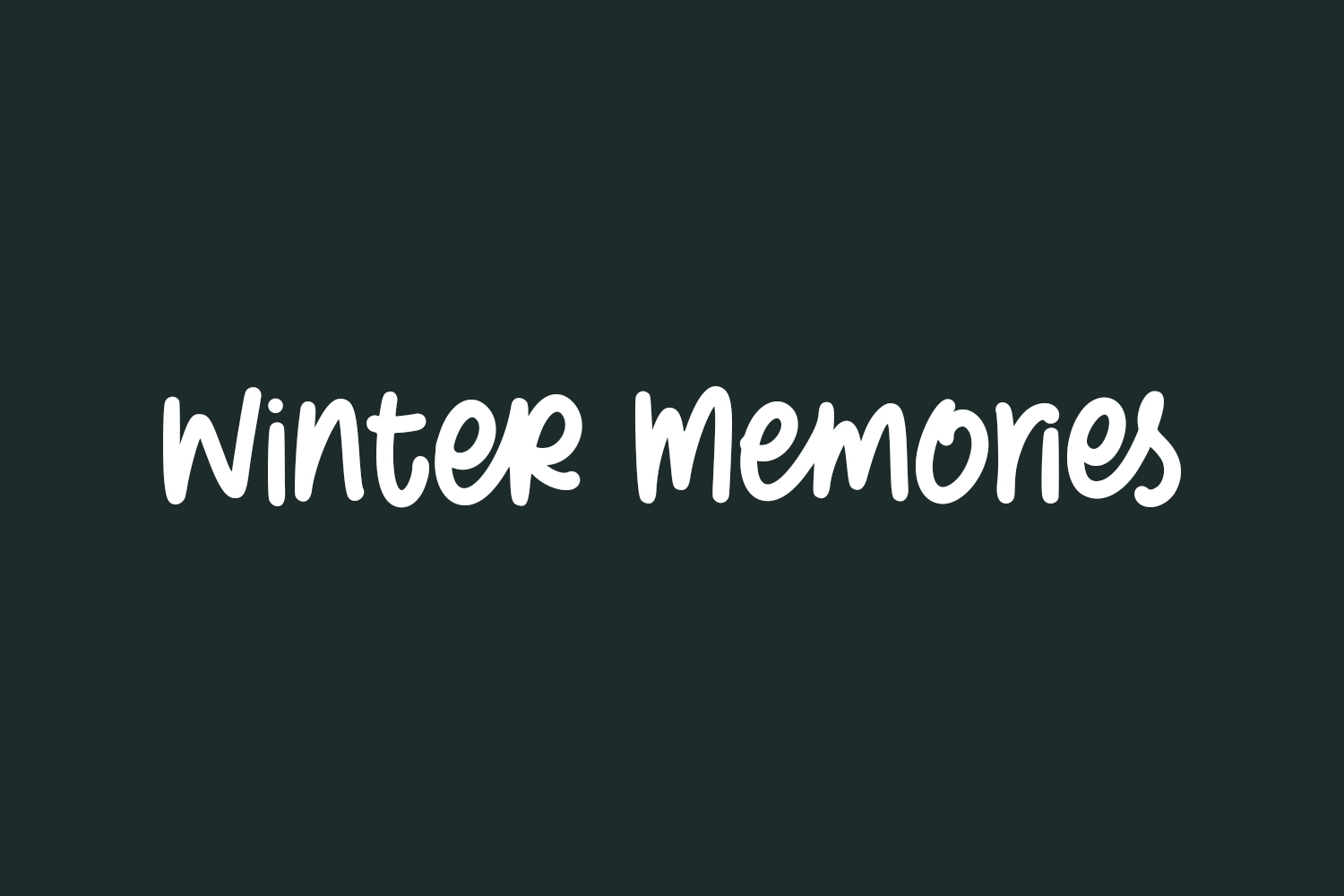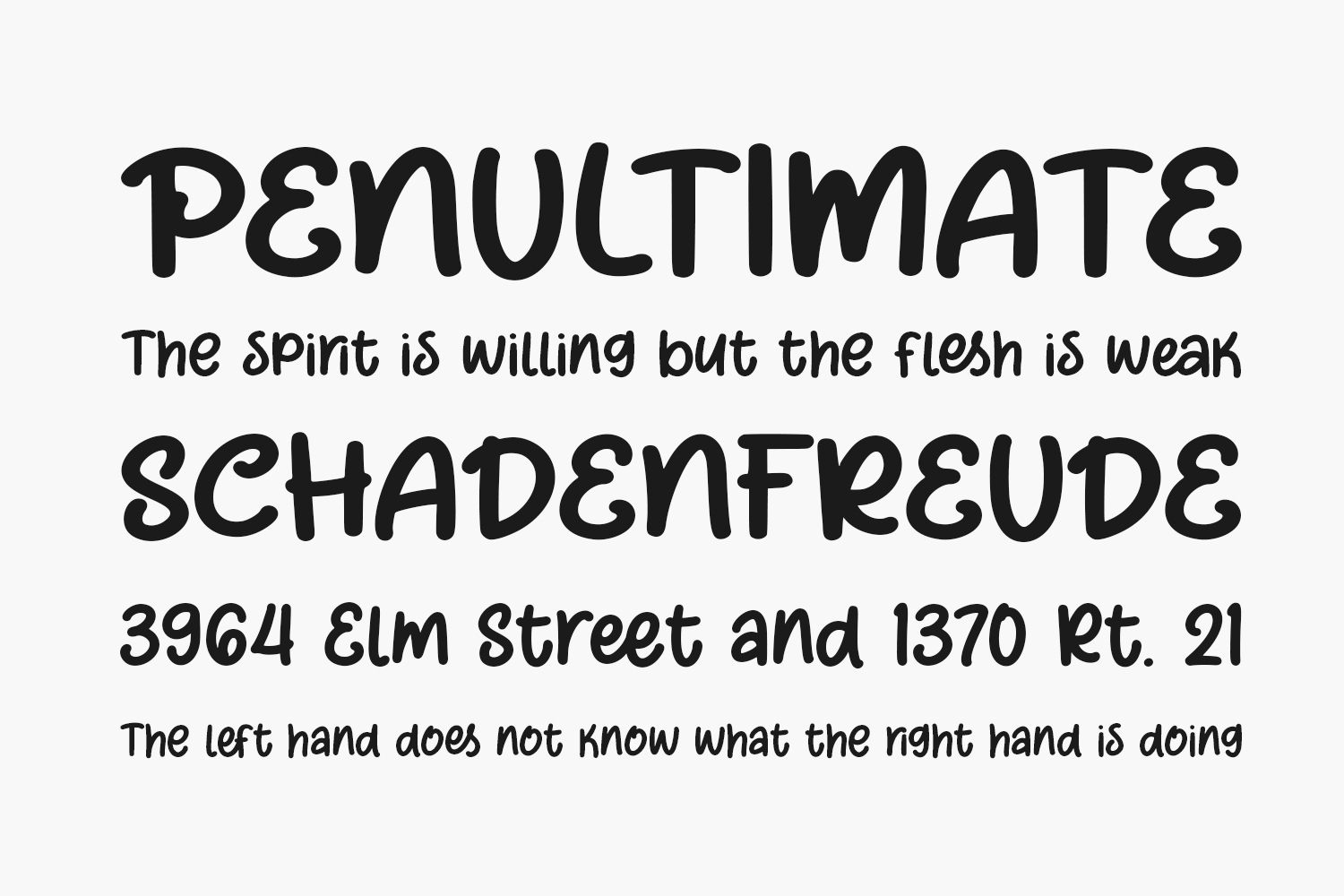
Introducing Winter Memories Free Font, a charming handwritten font boasting a cute and distinctive style. Ideal for a myriad of design purposes including branding, logo design, lettering, clothing, posters, magazines, packaging, shopping bags, t-shirts, book covers, photography, special events, and more. Unleash the versatility of Winter Memories to breathe life into your design projects with its irresistible charm. Download the font for free if you need it for personal use or purchase the full version for commercial use.
Designed by Alpaprana Studio